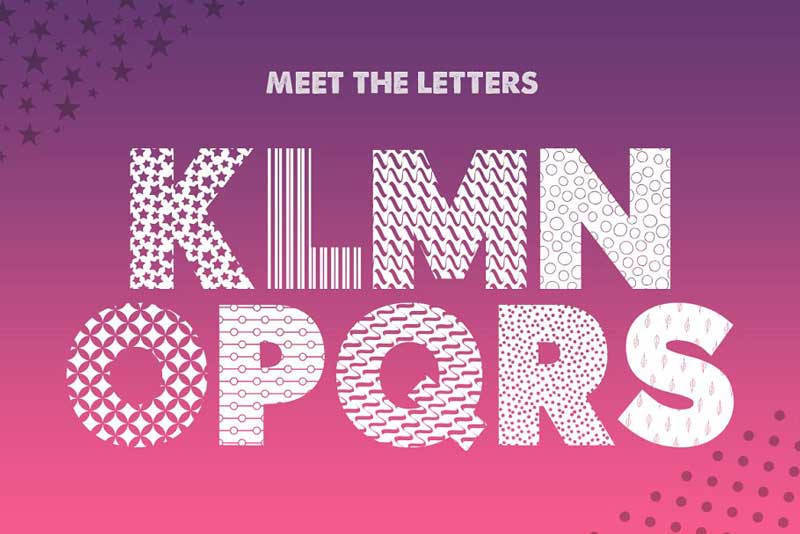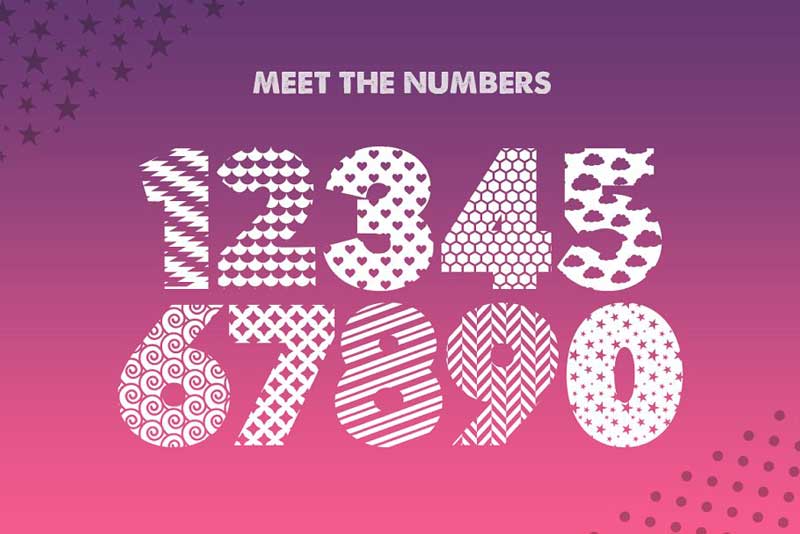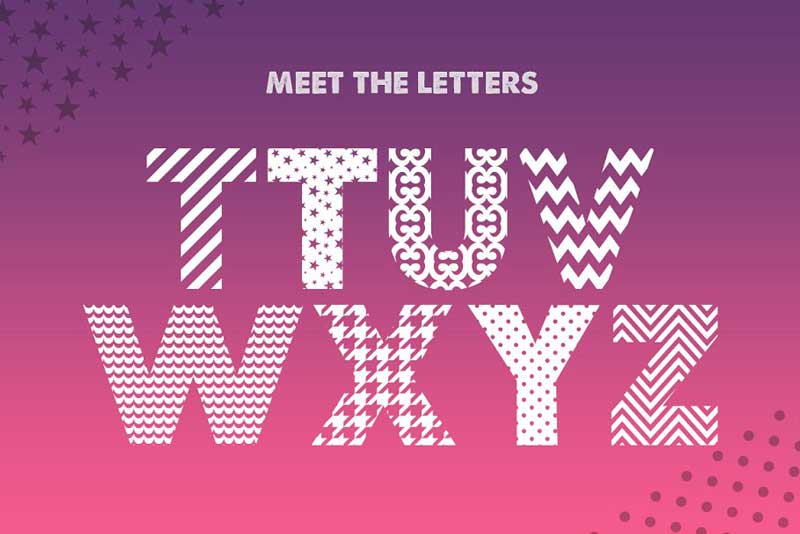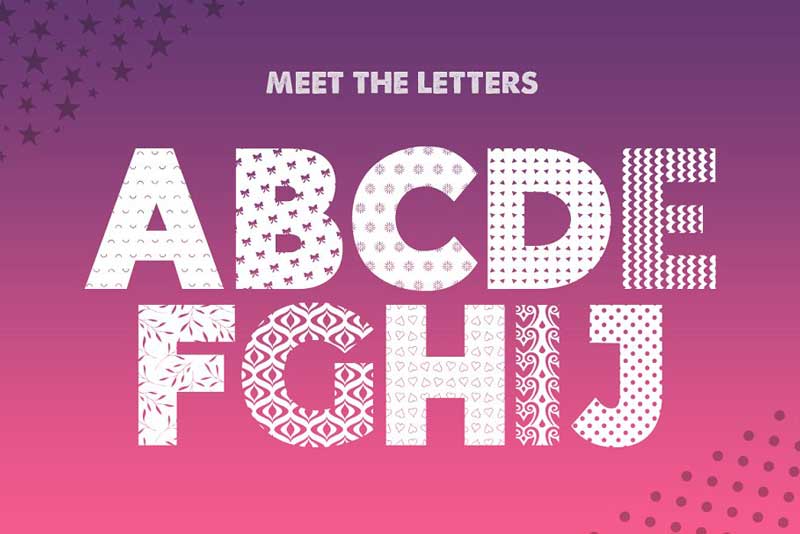
Download Free Creativemarket Pattern Silhouette Font 4652833. Pattern Silhouette Font (OTF & TTF Format). New pattern font for business card, logo, banner, poster, advertising, etc.